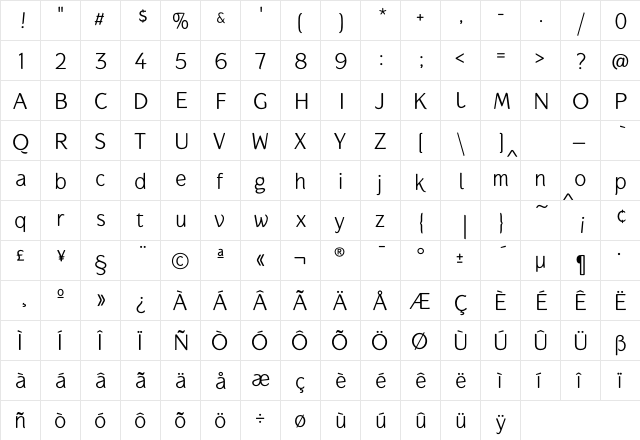
Gauntlet Classic Regular
| Foundry | Dimitri Castrique |
| Designer | Dimitri Castrique |
Design Context for Gauntlet Classic Typeface
Gauntlet Classic has the warm character of retro typography — evoking diners, record sleeves, and the golden age of print advertising.
Font Pairing: Combine Gauntlet Classic with a simple slab or neutral sans — period-accurate companions reinforce the vintage feel without competing for attention.
Pro Tip: Lean into Gauntlet Classic's period character by pairing it with aged paper textures, muted colour palettes, and vintage illustration styles.